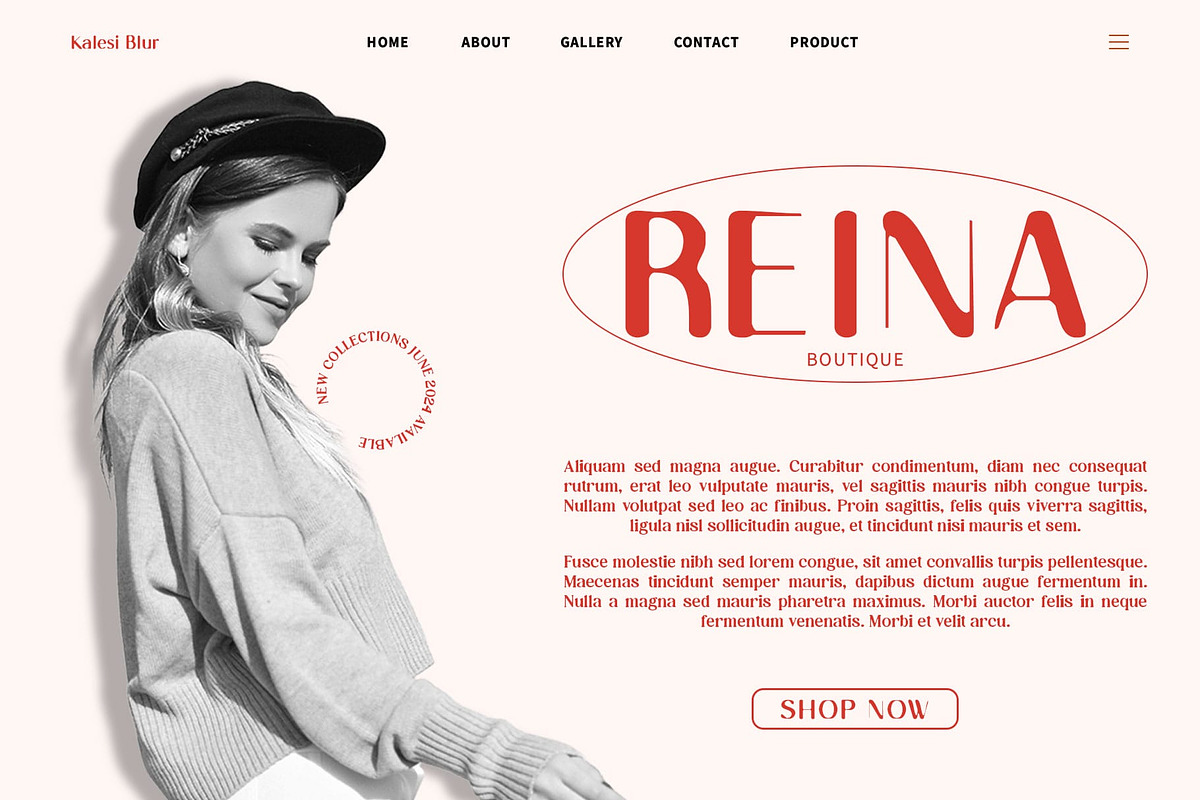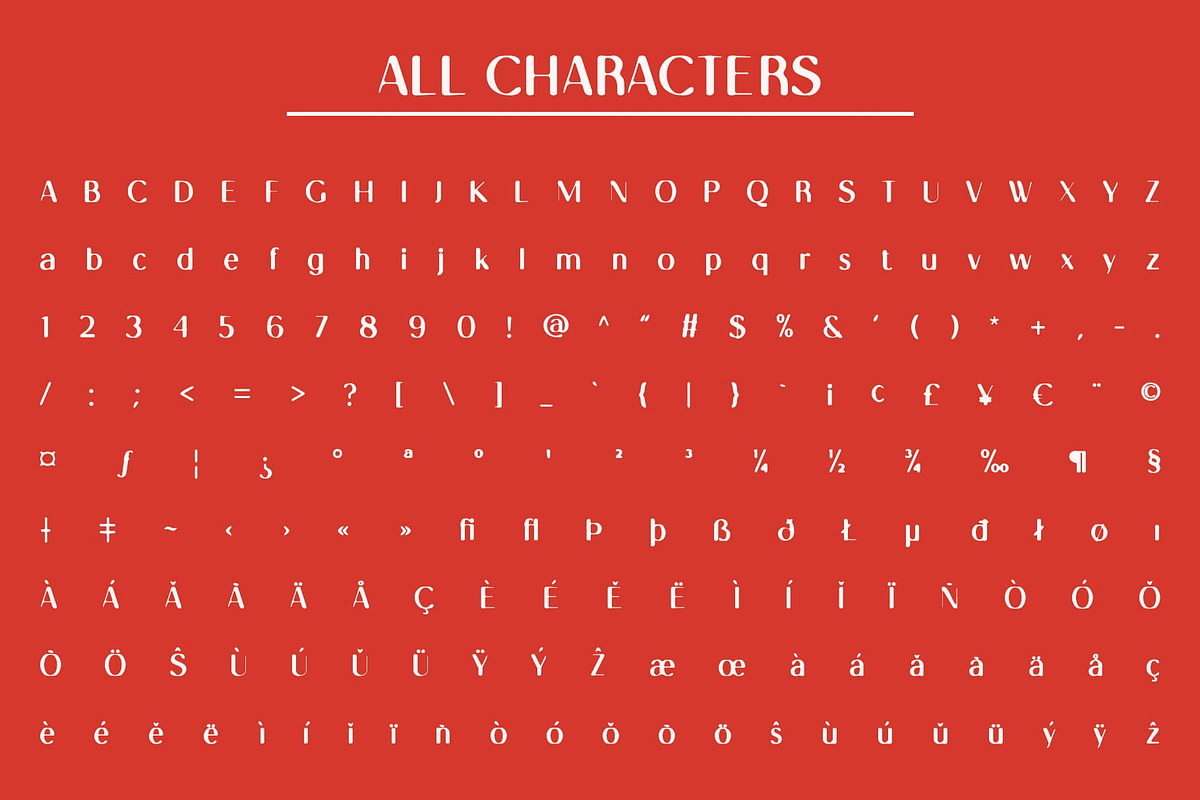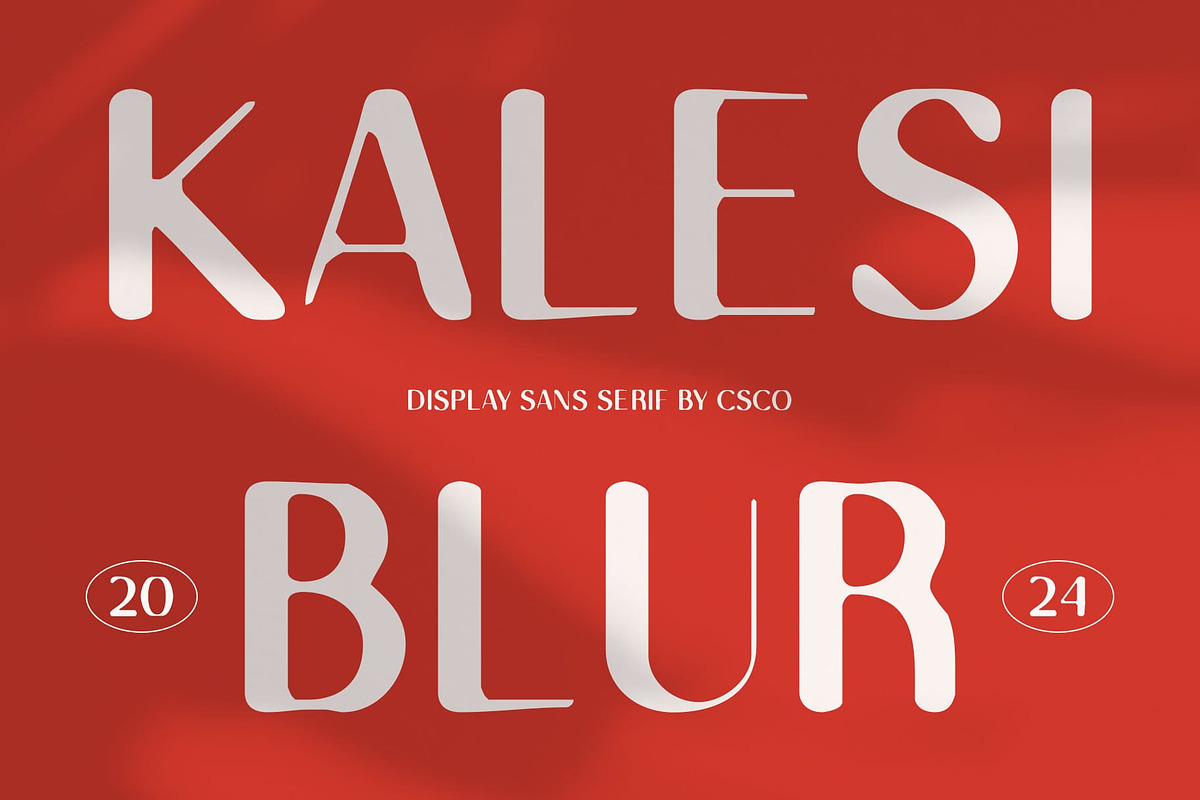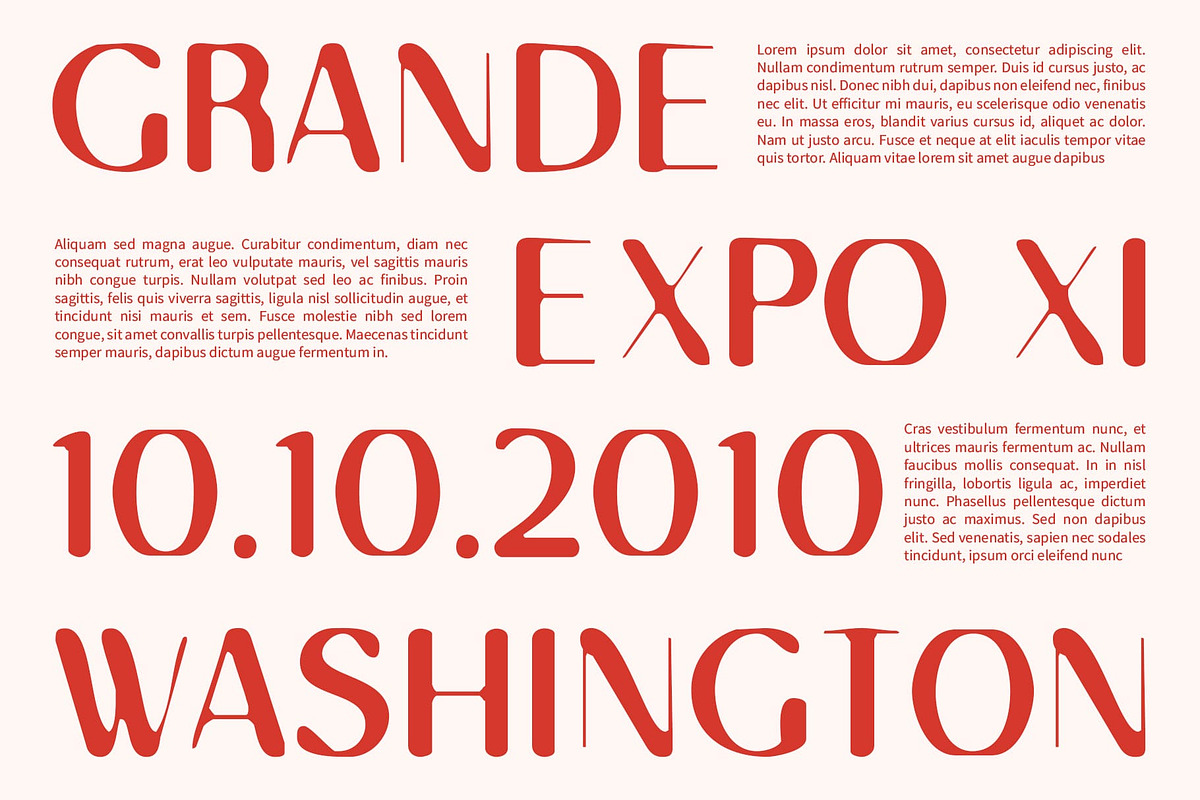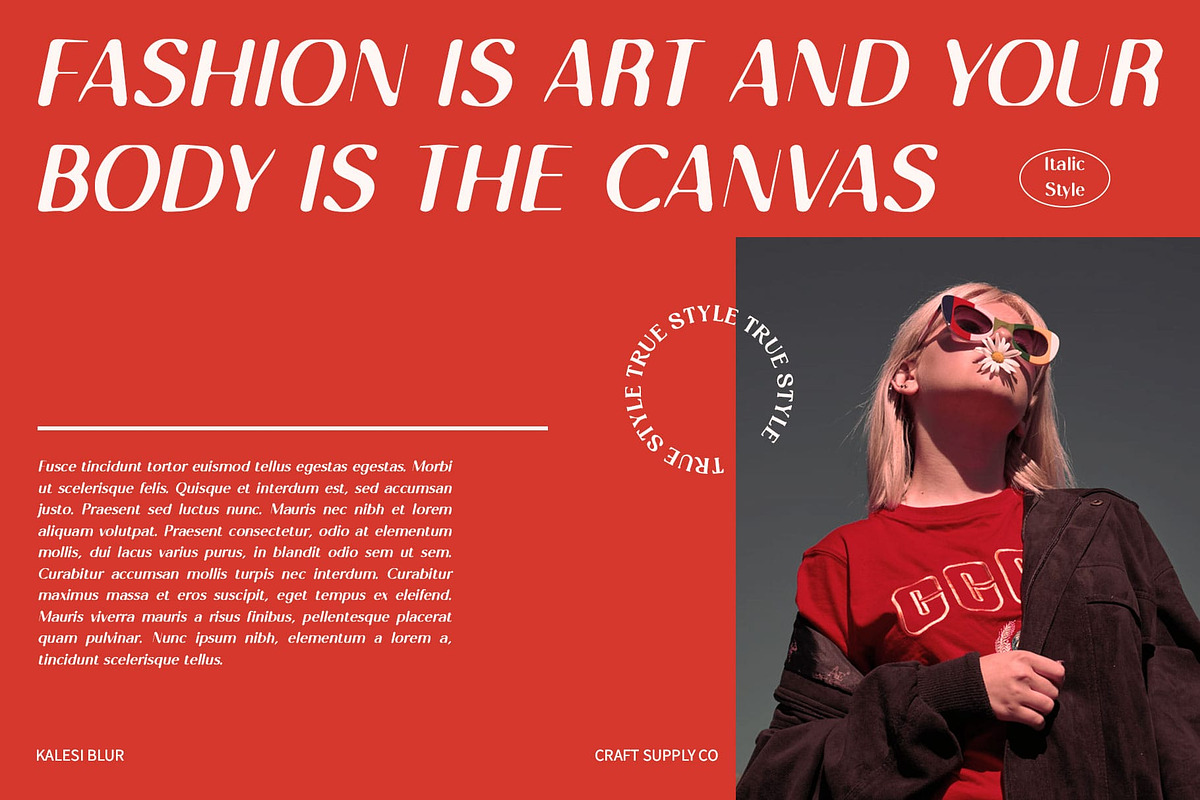
Kalesi Blur
Kalesi Blur: Where Modernity Blurs
Modern Blur Sans
Kalesi Blur is a sans serif font with a modern style and a blur effect, suitable for display purposes. Its sleek design and blurred elements create a unique and contemporary look, ideal for posters, branding, and other projects that require a bold statement.
Modern Style with Blur Effect
With its clean lines and blurred details, Kalesi Blur offers a fresh take on traditional sans serif fonts. The modern style and blur effect create a captivating and dynamic look, perfect for designs that demand attention and convey a sense of modernity and innovation.
Perfect for Display Purposes
Whether you’re designing a website header or creating a poster, Kalesi Blur is sure to make an impression. Its blur effect and modern style make it perfect for displays that need a touch of contemporary flair.
Versatile and Easy to Use
Despite its distinctive appearance, Kalesi Blur is versatile and easy to use. The font works well in both large and small sizes, making it suitable for a variety of applications, from headlines and banners to body text and more. With its blend of modern style and blur effect, Kalesi Blur adds a captivating and modern touch to any design.